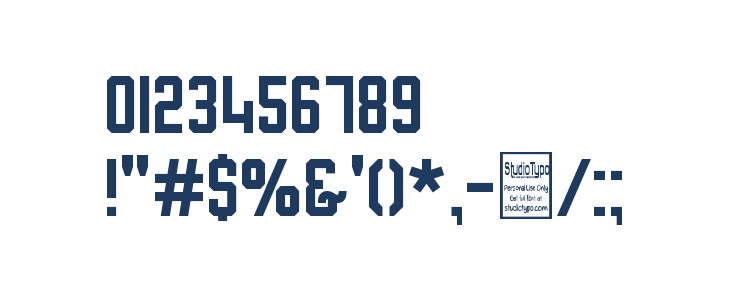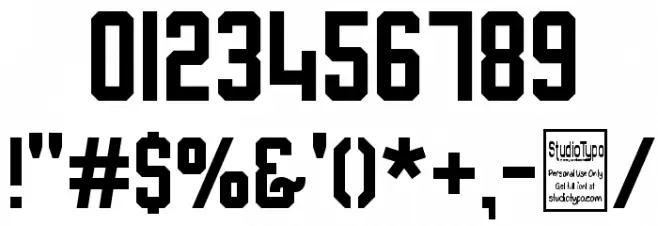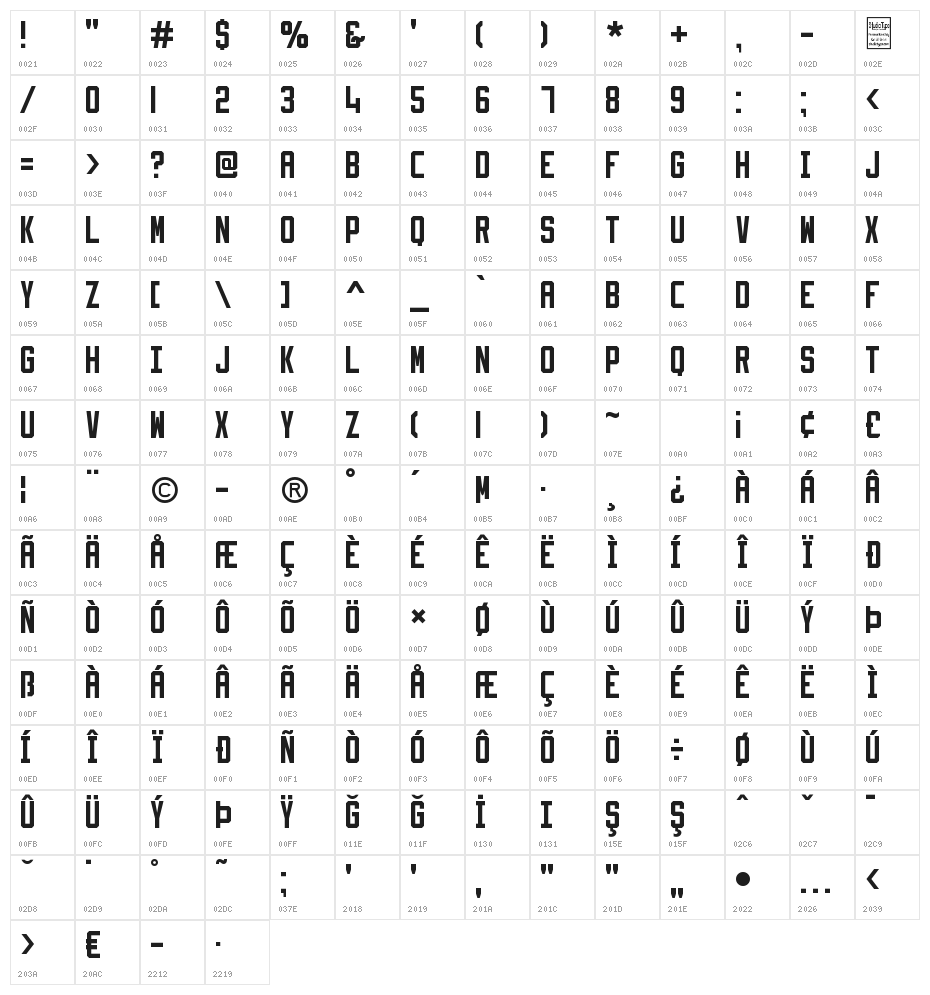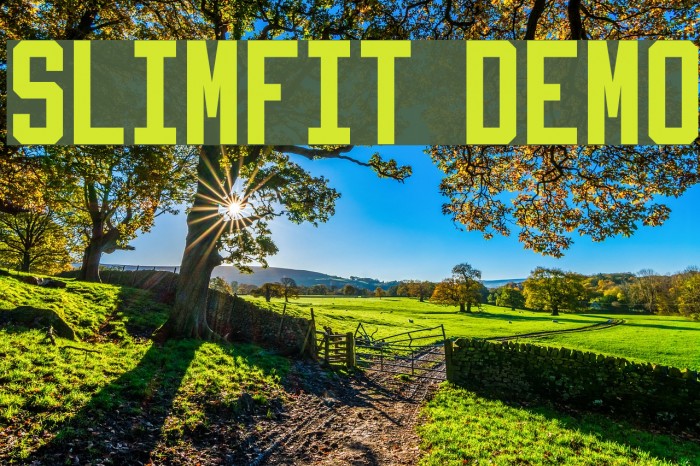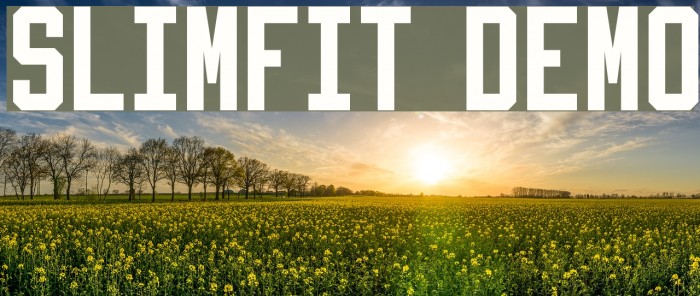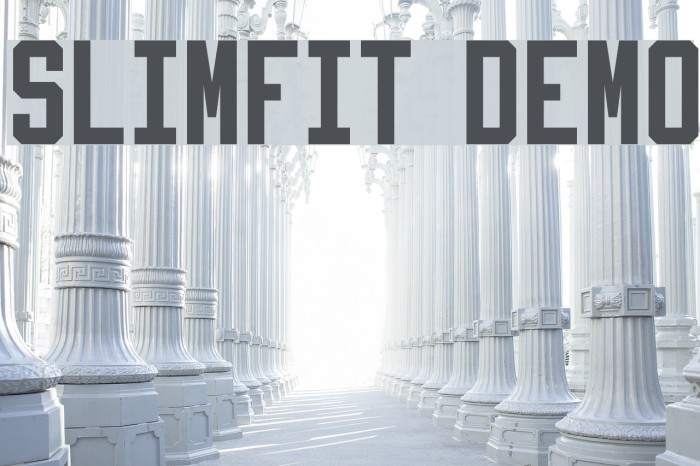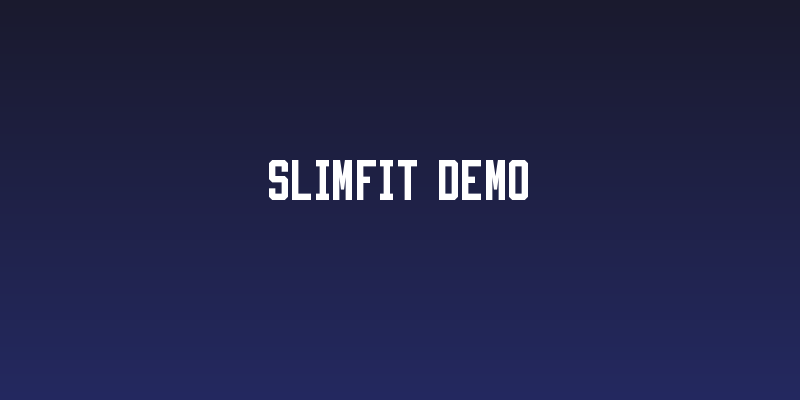
Slimfit Demo Font
Slimfit Demo Description
This font features a bold, geometric style with a strong presence. The characters are constructed with straight lines and sharp angles, giving it a modern and industrial feel. The uppercase and lowercase letters maintain a consistent height, contributing to a uniform appearance. The numerals and special characters follow the same design principles, ensuring cohesion across all glyphs. The font's blocky nature makes it highly legible, even at smaller sizes, while its boldness ensures it stands out in any design. It's ideal for projects that require a strong, impactful typeface.
| Proposed Projects | Ideal for branding, posters, headlines, and signage where a strong, impactful typeface is needed. |